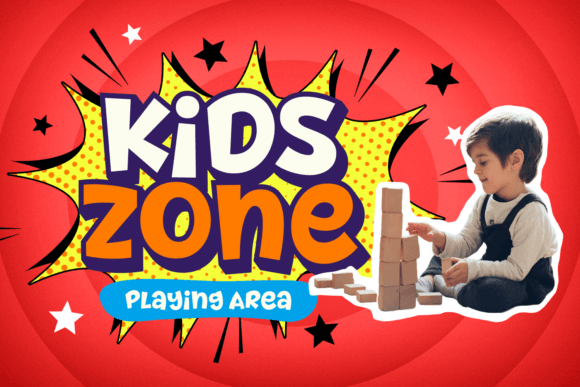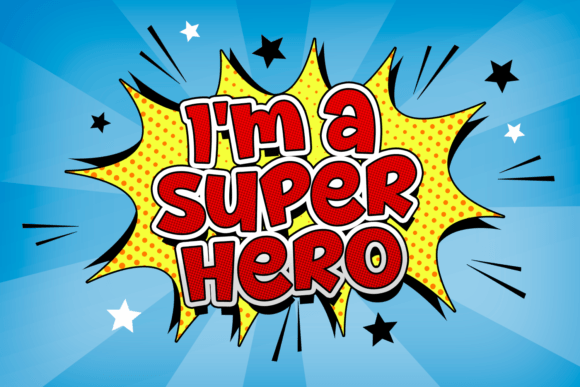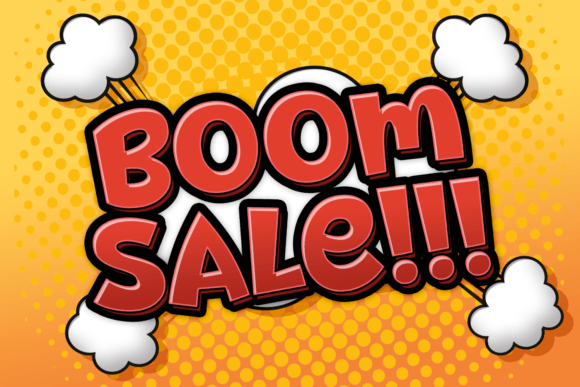
Introducing Comic Elite Font: The Ultimate Choice for Playful and Engaging Designs
Are you a designer, crafter, or educator looking for a font that can add a touch of fun and playfulness to your projects? Look no further than Comic Elite Font, a lively and energetic children’s comic font designed to evoke the classic style of comic book lettering. With its lighthearted and expressive design, Comic Elite is the perfect choice for creating engaging and entertaining content for kids.
The Inspiration Behind Comic Elite Font
Comic Elite Font is inspired by the classic comic book style of the past, with its bold lines, playful curves, and energetic flair. The font is designed to capture the imagination of young readers and bring a sense of excitement and adventure to your designs. Whether you’re creating a comic strip, a storybook, or educational materials, Comic Elite Font is the perfect choice for adding a touch of whimsy and fun.
Key Features of Comic Elite Font
So, what makes Comic Elite Font so special? Here are just a few of its key features:
- Lively and Playful Design: Comic Elite Font is designed to be fun and engaging, with a lighthearted and energetic feel that’s perfect for kids.
- Classic Comic Book Style: The font is inspired by the classic comic book style of the past, with bold lines, playful curves, and a sense of adventure.
- Clear and Easy to Read: Despite its playful design, Comic Elite Font is clear and easy to read, making it perfect for use in narrative-driven designs.
- Perfect for Children’s Content: Comic Elite Font is specifically designed for use in children’s content, from comic strips to storybooks and educational materials.
Uses for Comic Elite Font
So, what can you use Comic Elite Font for? The possibilities are endless! Here are just a few ideas to get you started:
- Comic Strips: Comic Elite Font is perfect for creating comic strips that are fun, engaging, and easy to read.
- Children’s Books: The font is ideal for use in storybooks, picture books, and other narrative-driven designs for kids.
- Educational Materials: Comic Elite Font can add a touch of fun and playfulness to educational materials, making learning more engaging and enjoyable for kids.
- Crafting and DIY Projects: The font is also perfect for use in crafting and DIY projects, such as making signs, banners, and other decorative items.
Why Choose Comic Elite Font?
So, why should you choose Comic Elite Font for your next project? Here are just a few reasons:
- Unique and Engaging Design: Comic Elite Font has a unique and engaging design that’s sure to capture the imagination of young readers.
- Easy to Read and Use: The font is clear and easy to read, making it perfect for use in narrative-driven designs.
- Versatile and Flexible: Comic Elite Font can be used in a wide range of projects, from comic strips to educational materials.
- Fun and Playful: The font is designed to be fun and playful, adding a touch of whimsy and excitement to your designs.
In conclusion, Comic Elite Font is the ultimate choice for designers, crafters, and educators looking for a fun and playful font that’s perfect for kids. With its lively and energetic design, classic comic book style, and clear and easy-to-read lettering, Comic Elite Font is the perfect choice for creating engaging and entertaining content for young readers. So why wait? Download Comic Elite Font today and start creating your own fun and playful designs!